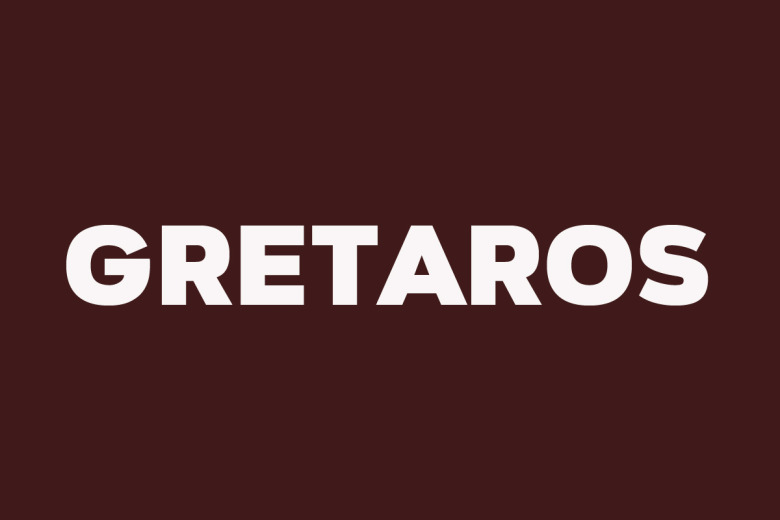
Gretaros Font
Gretaros is an all caps display sans-serif font suitable for headlines, headings, branding, posters, packaging, titles and logos.
Gretaros Sans Serif Font